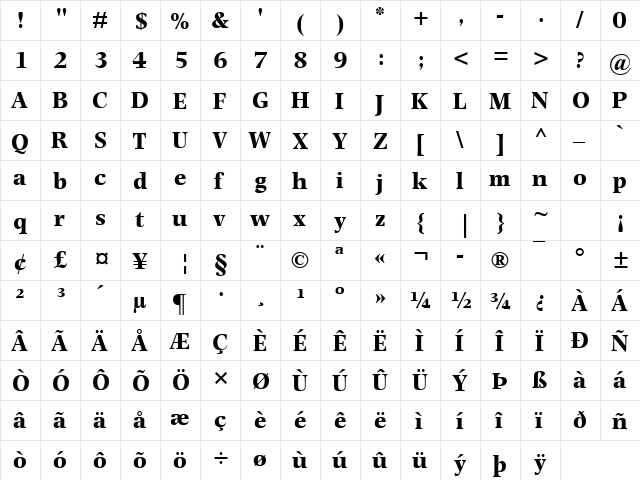
Photina MT Bold
Bold · Agfa Monotype Corporation  ·
Design Context for Photina MT Typeface
Photina MT is a composed and adaptable typeface that performs quietly and consistently across a wide range of design contexts. Its bold stroke weight gives it real presence on the page.